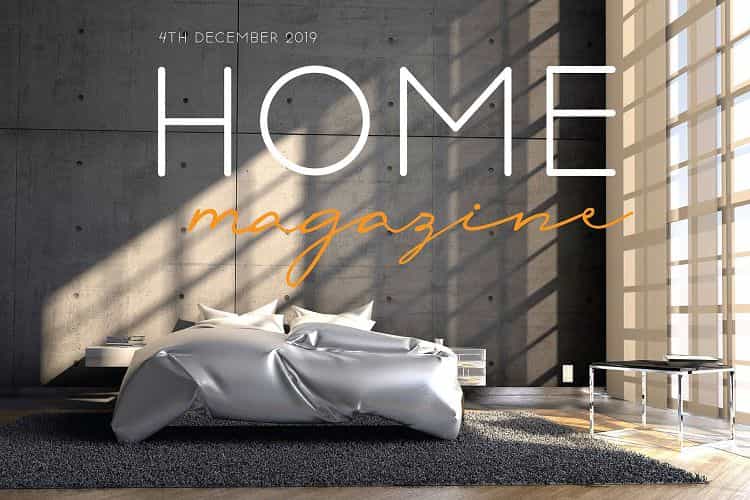
A modern and elegant combination of fonts. Introducing Revilo Font. This is a contemporary thin sans serif font. It is created and distributed by GIT. Revilo is a modern and trendy typeface that combines the script and san serif styles. modern san serif and a flashy flowing, one-of-a-kind script partner.